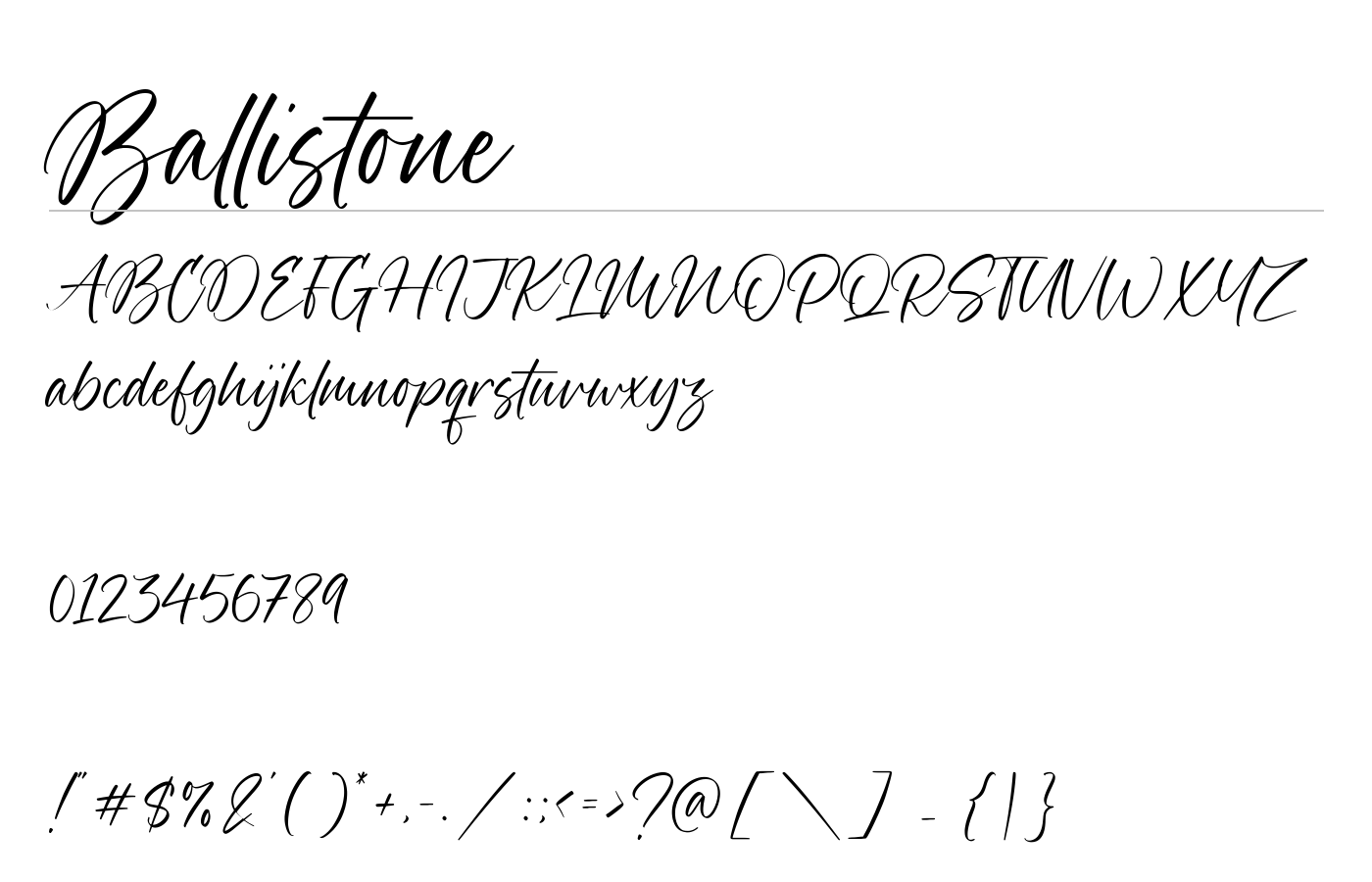
Ballistone is an elegant and flowing script font with a refined, handwritten feel. Its thin strokes and graceful curves give it a sophisticated yet approachable personality, making it perfect for wedding invitations, branding, and fashion projects that seek a personal and stylish touch. This font works beautifully in headlines and decorative text where a delicate, artistic flair is desired.
Ballistone Font